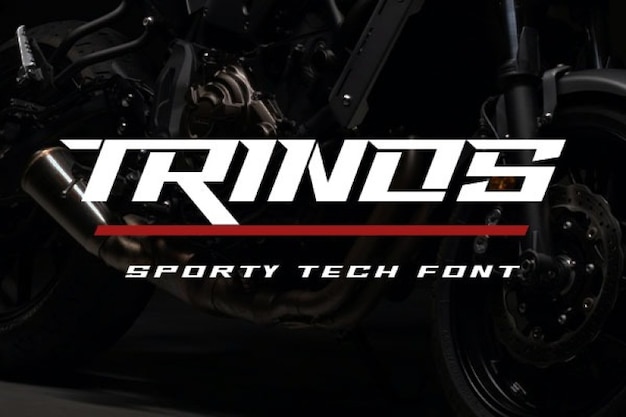
Trinos Font
Do you want to avoid your project to look dull or uninspiring? This Trinos font kicks in to sprint past its competitors. Its bold style, geometric strokes and right-slanted angle represent speed, bravery and self-confidence. This all-caps typeface comes with additional stencil alternate glyphs with slices. It's very suitable for sports, car races and techno themes. Download it from Freepik now!
Trinos Solid (400)
Trinos Stencil (400)